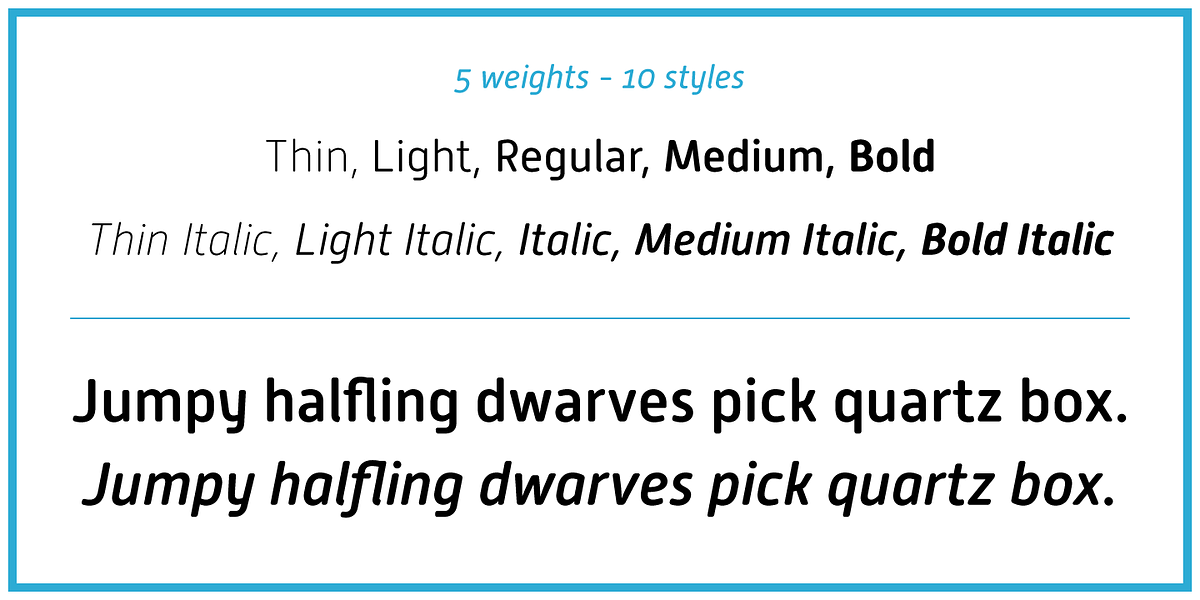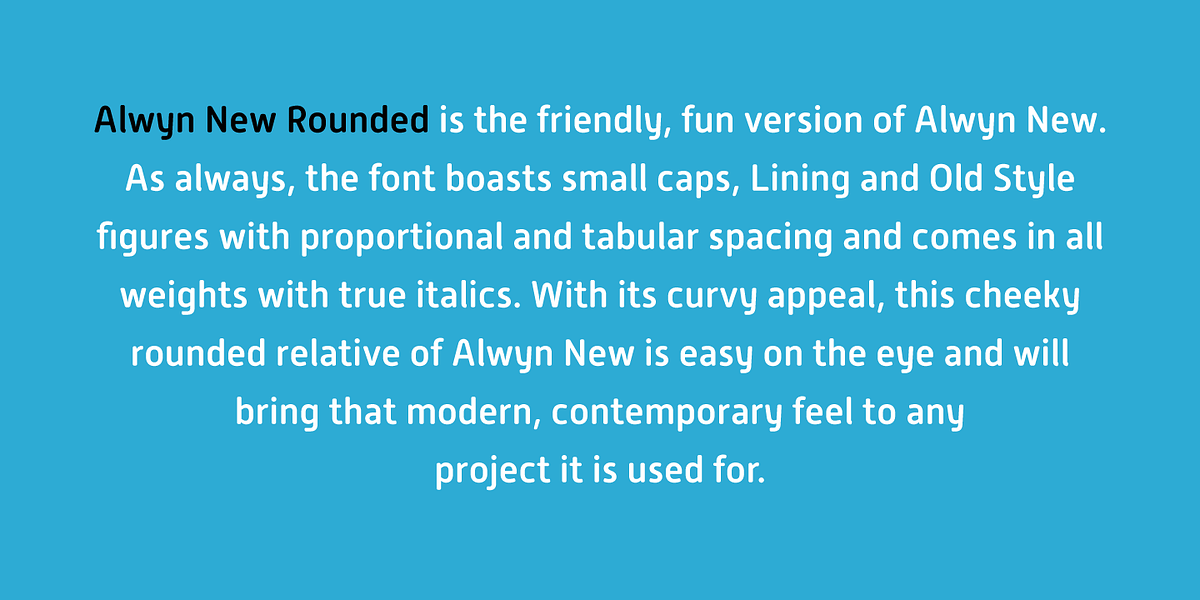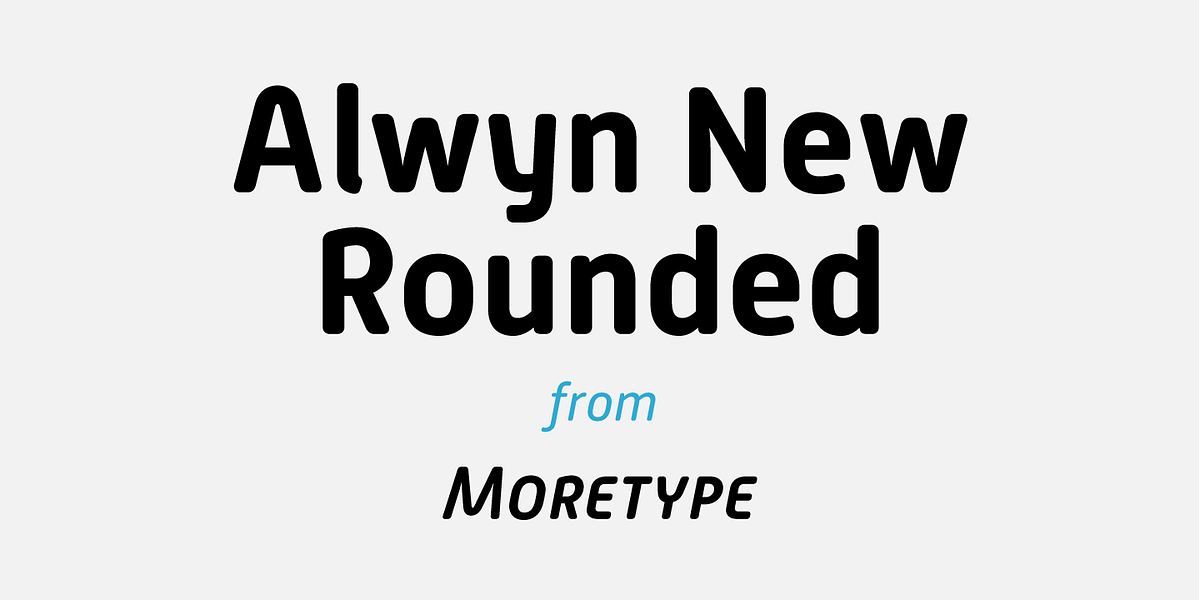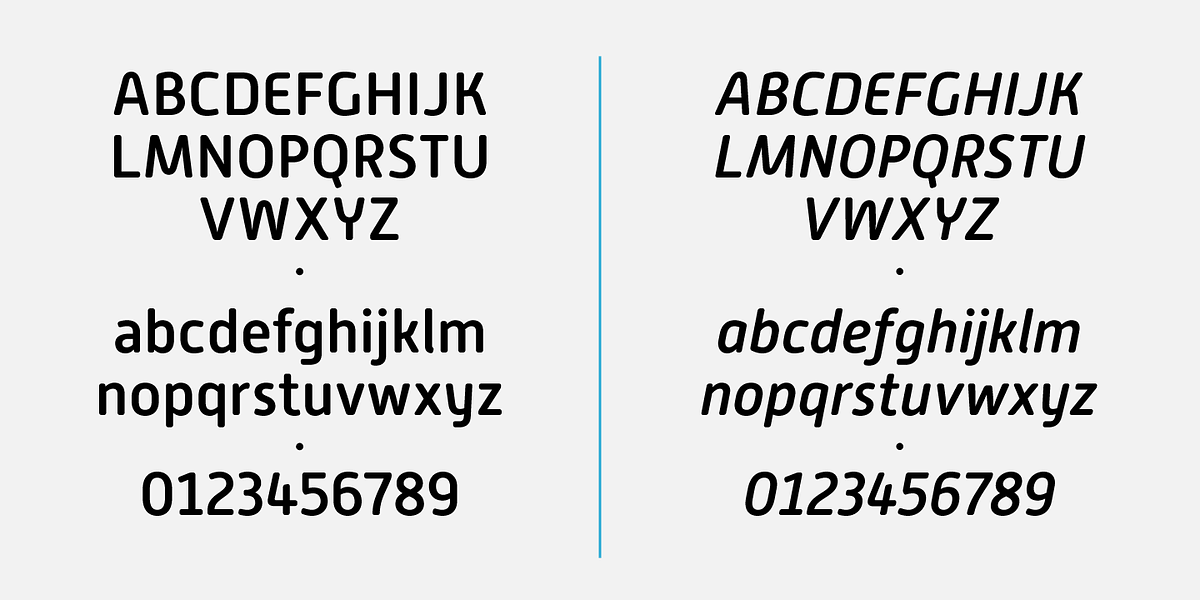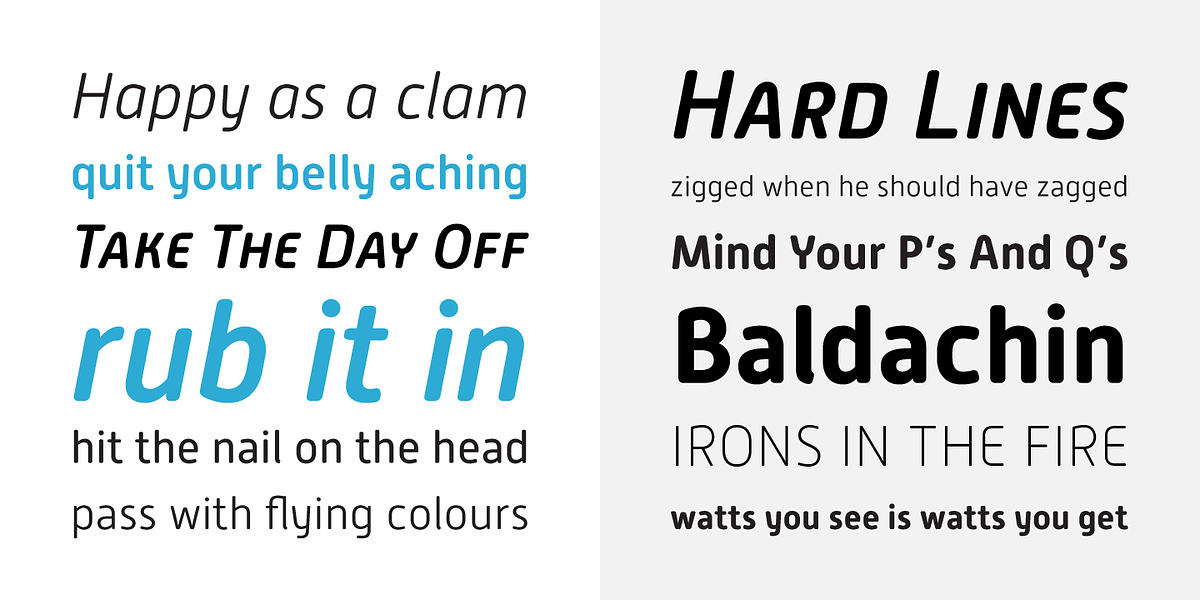
Alwyn New Rounded
Alwyn New is a re-designed and updated version of the original Alwyn font. It retains its distinctive 'squarish' and robust appearance while offering improved spacing and kerning. This neo-humanist sans serif font comes in a range of weights from Thin to Bold, with Italics for each weight. Its versatility makes it suitable for both text setting and signage systems. The font has been specifically optimized for web use.